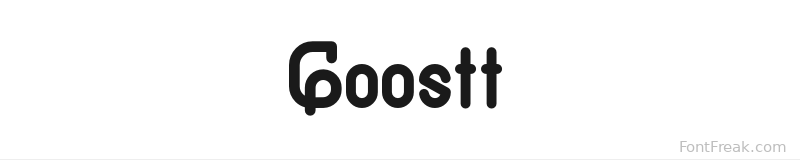
Goostt
About Goostt
The Goostt font, designed by Kong Font in 2019, is a modern sans-serif typeface that embodies simplicity and elegance. With its clean lines and minimalistic design, Goostt features a consistent stroke weight that enhances readability while maintaining a contemporary aesthetic. The font showcases a balanced contrast that allows for smooth visual flow, making it versatile for various applications. The spacing is thoughtfully designed to provide clarity, ensuring that each letterform stands out without feeling overcrowded.
This font is perfect for a multitude of use cases, especially in creative and professional environments. It works beautifully for wedding invitations, where its elegant yet straightforward style can evoke a sense of sophistication. Goostt is also ideal for movie posters, offering a modern touch that can captivate audiences. Restaurant menus benefit from its readability and chic appearance, making it an excellent choice for both fine dining and casual eateries. Additionally, small business branding can leverage Goostt for logos and promotional materials, creating a memorable identity that resonates with customers.
What sets the Goostt font apart is its ability to blend functionality with aesthetics. It stands as a testament to the idea that simplicity can be striking, making it a standout choice for anyone seeking a modern typeface. For those interested in enhancing their design repertoire, a Goostt font free download is an excellent opportunity to explore its unique characteristics and applications.